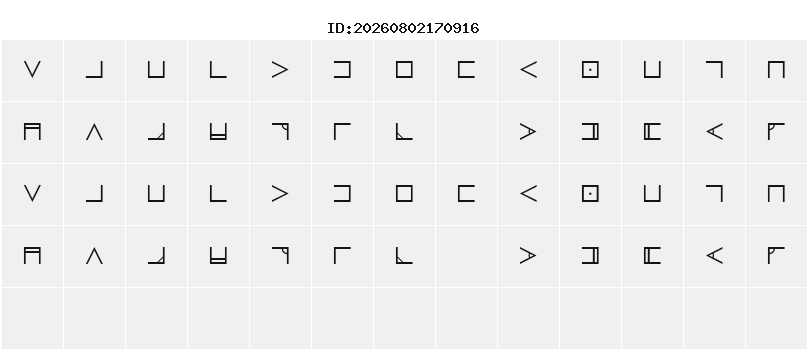
• Font Name: Nugsoth
• Designer: Thomas W. Otto
• Description: In this historical period there were no letters for 'j', 'u', or 'w'. These letters are variations of 'i' and 'v' .